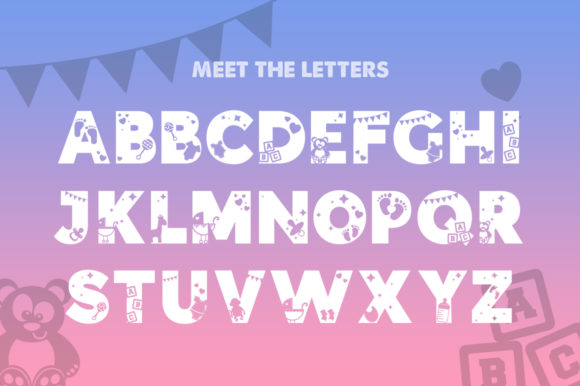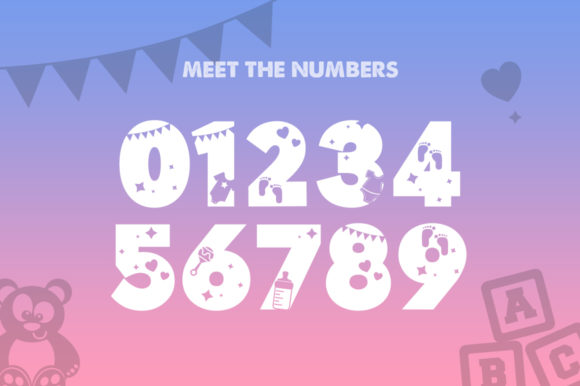
Baby Font: The Perfect Addition to Your Children’s Designs
Are you a designer or crafter looking for a unique and eye-catching font to add to your children’s designs? Look no further than Baby Font, a bold and chunky lettered display font that’s sure to make your creations stand out. In this article, we’ll take a closer look at Baby Font, its features, and how you can use it to take your designs to the next level.
What is Baby Font?
Baby Font is a display font designed specifically for use in children’s designs. Its bold and chunky letters make it perfect for creating eye-catching titles, headings, and text elements that are sure to grab attention. The font’s playful and child-friendly design makes it ideal for use in a variety of applications, from nursery decor and children’s clothing to educational materials and marketing campaigns.
Key Features of Baby Font
So, what makes Baby Font so special? Here are just a few of its key features:
- Bold and Chunky Letters: Baby Font features bold and chunky letters that are perfect for creating eye-catching text elements.
- Playful and Child-Friendly Design: The font’s playful and child-friendly design makes it ideal for use in children’s designs.
- Easy to Read: Despite its bold and chunky design, Baby Font is easy to read, even at smaller sizes.
- Versatile: Baby Font can be used in a variety of applications, from digital designs to print materials.
How to Use Baby Font in Your Designs
Now that we’ve covered the basics of Baby Font, let’s take a look at how you can use it in your designs. Here are a few ideas to get you started:
- Nursery Decor: Use Baby Font to create custom nursery decor, such as wall art, banners, and signs.
- Children’s Clothing: Add Baby Font to your children’s clothing designs, such as t-shirts, onesies, and hoodies.
- Educational Materials: Use Baby Font to create educational materials, such as worksheets, activity sheets, and posters.
- Marketing Campaigns: Use Baby Font to create eye-catching marketing campaigns, such as social media graphics and flyers.
Tips for Getting the Most Out of Baby Font
Here are a few tips for getting the most out of Baby Font:
- Experiment with Different Colors: Baby Font looks great in a variety of colors, so don’t be afraid to experiment and find the perfect color for your design.
- Use it with Other Fonts: Baby Font pairs well with other fonts, so try using it with a complementary font to add some visual interest to your design.
- Play with Different Sizes: Baby Font looks great at a variety of sizes, so try experimenting with different sizes to add some visual hierarchy to your design.
In conclusion, Baby Font is a bold and chunky lettered display font that’s perfect for adding a touch of personality to your children’s designs. Its playful and child-friendly design makes it ideal for use in a variety of applications, from nursery decor and children’s clothing to educational materials and marketing campaigns. With its ease of use and versatility, Baby Font is a great addition to any designer’s or crafter’s toolkit.